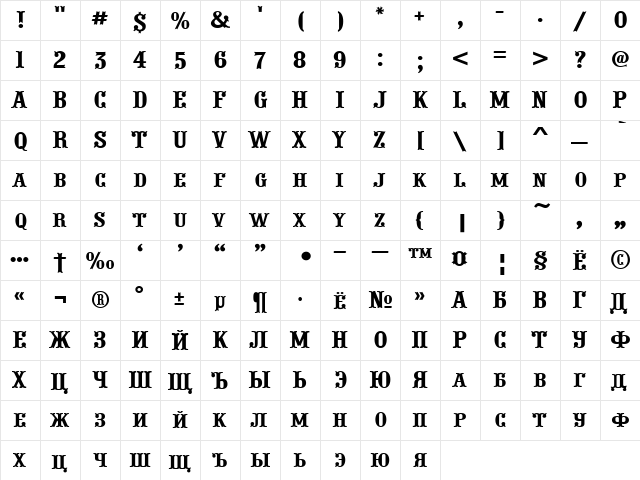
a_PresentumCps Regular
Design Context for a_PresentumCps Typeface
a_PresentumCps is a composed and adaptable typeface that performs quietly and consistently across a wide range of design contexts.